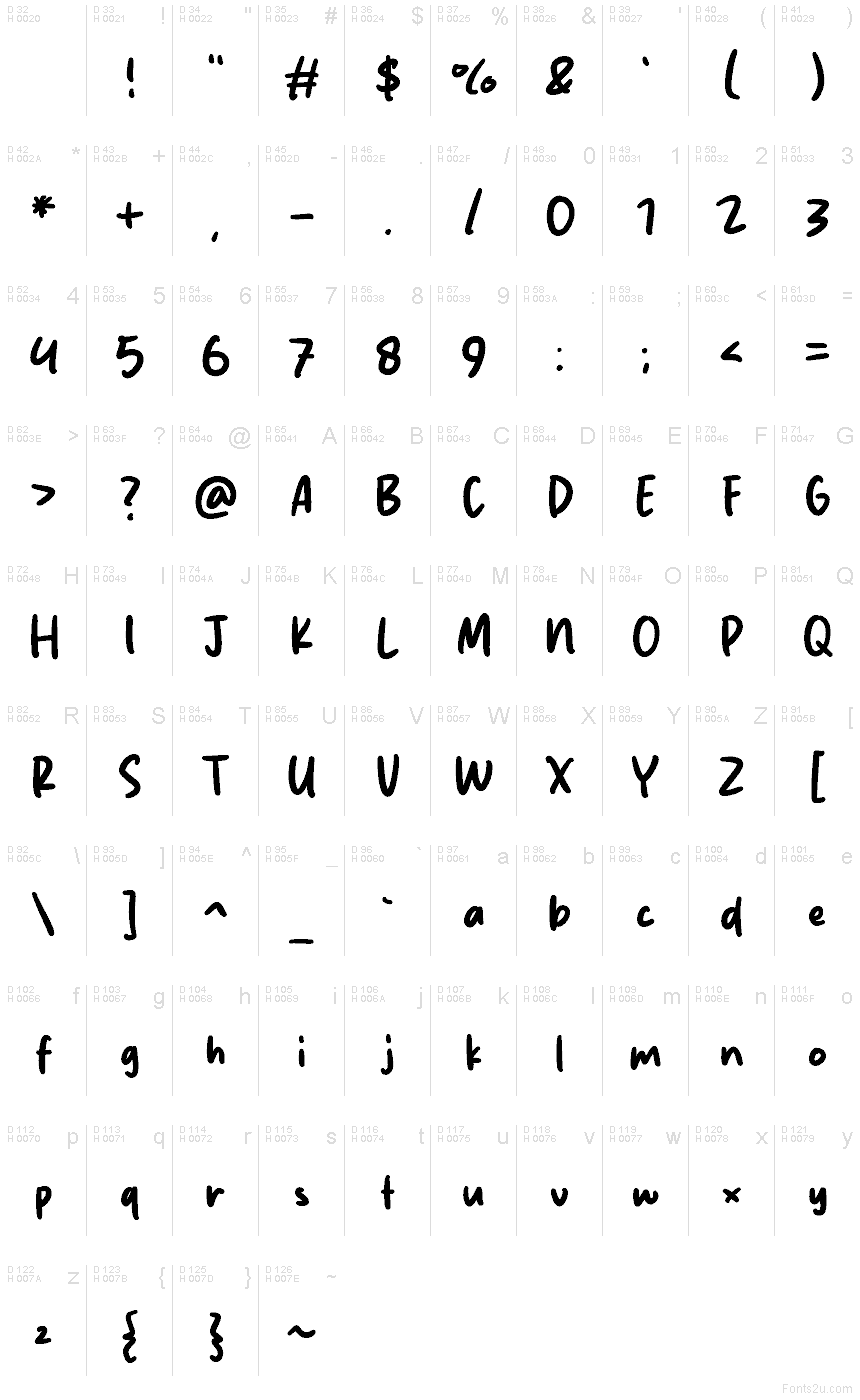
Silver Melody
Silver Melody font by MJType is a free handwritten font that captures a casual elegance with its organic flow and expressive style. Contemporary in its appeal, this typeface balances simplicity with an artistic touch, making it both readable and visually appealing.
Use this font for children’s books, digital invitations, posters, blog covers, branding projects, social media posts or stylish captions. It can also be used in greeting card designs or to customize bookmarks for your clients!